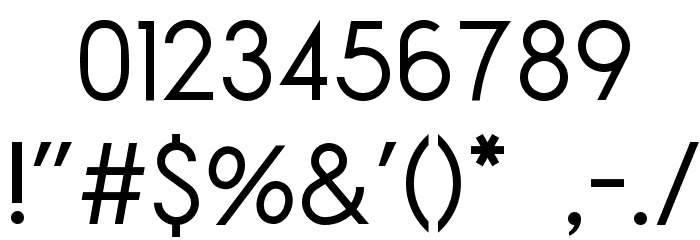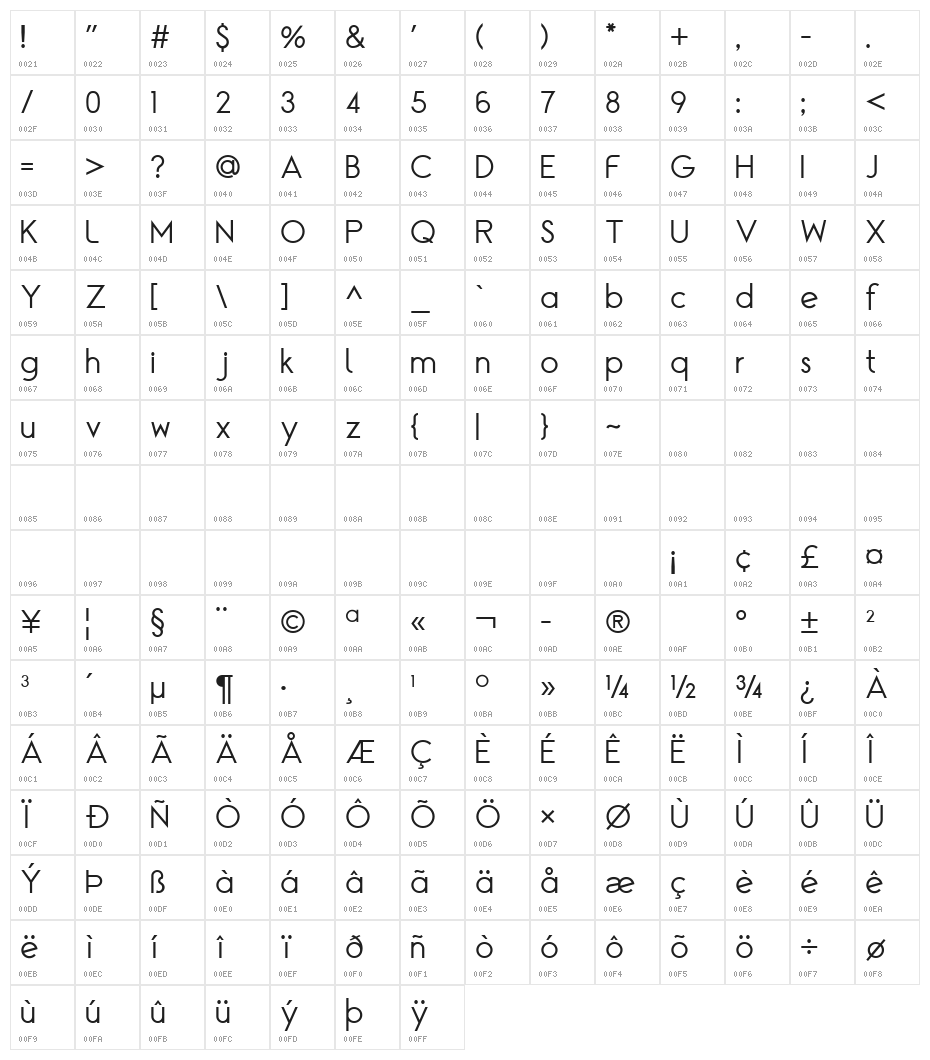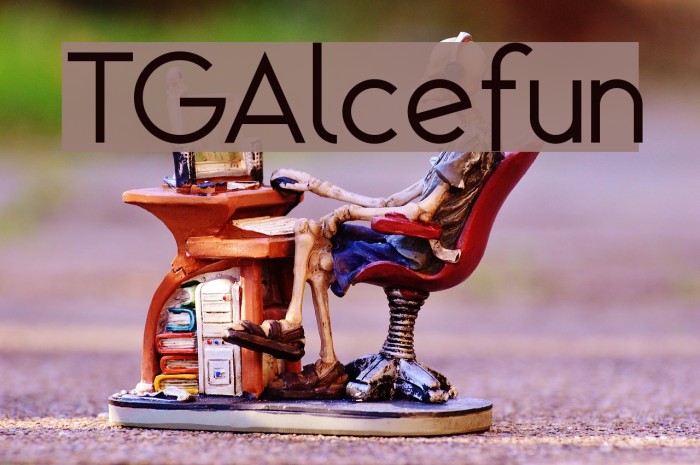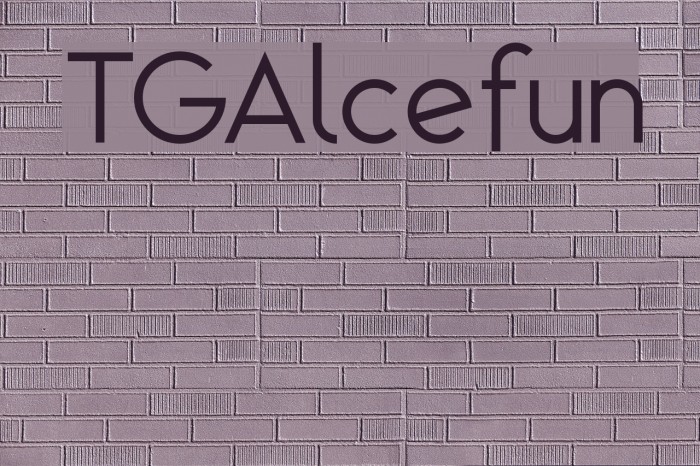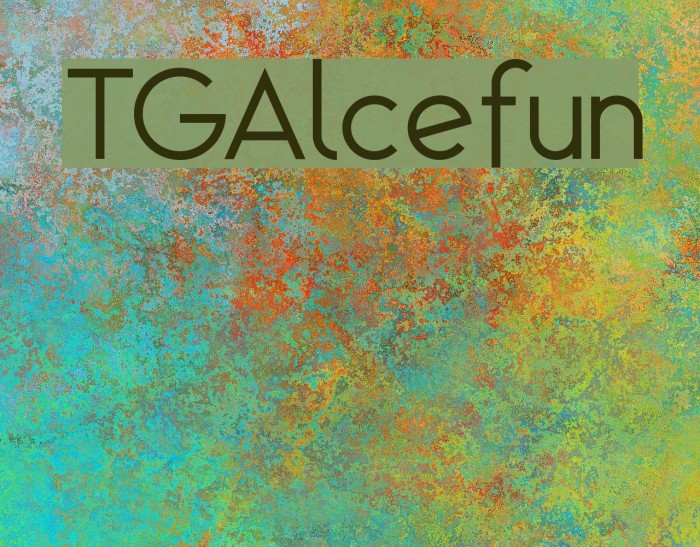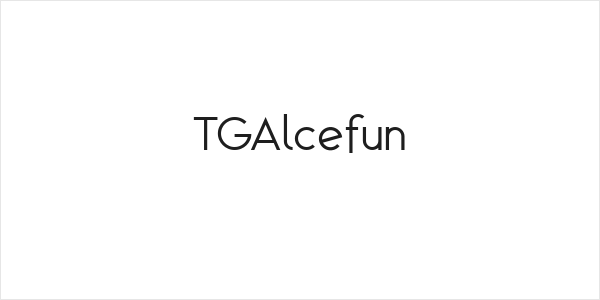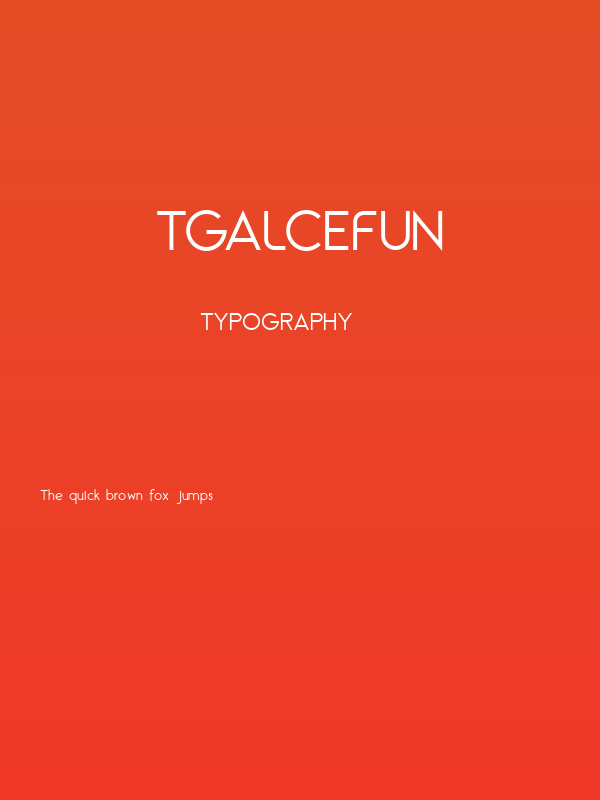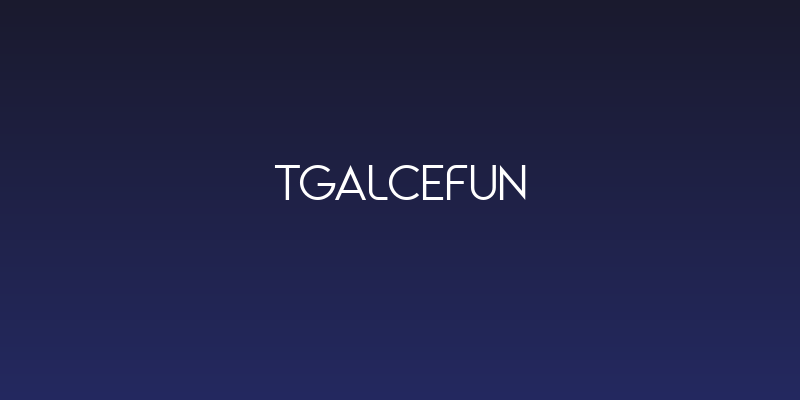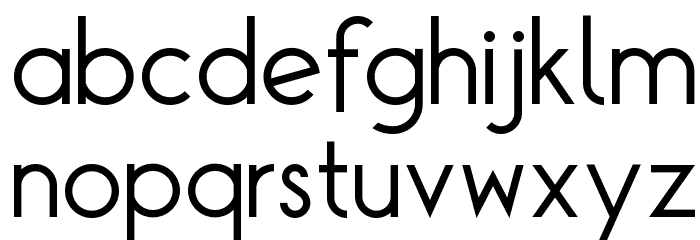
TGAlcefun Font
TGAlcefun Description
This font features a clean and modern sans-serif design with geometric influences. The characters are uniform in width, providing a balanced and harmonious appearance. The uppercase letters are bold and assertive, while the lowercase letters maintain a consistent and smooth flow. The numerals are clear and legible, making them suitable for a variety of applications. Special characters are well-defined, adding versatility to the font. The overall design is minimalistic, emphasizing clarity and readability, making it ideal for contemporary design projects.
| Proposed Projects | Ideal for branding, advertising, web design, and editorial layouts where clarity and modernity are key. |